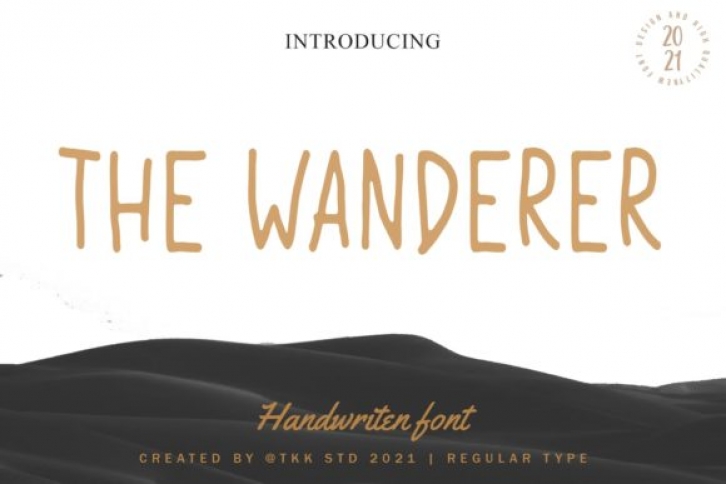
The Wanderer is a simple and vintage styled display font. This original look will appeal to a wide range of crafty ideas, from letterheads and titles, to stationery.